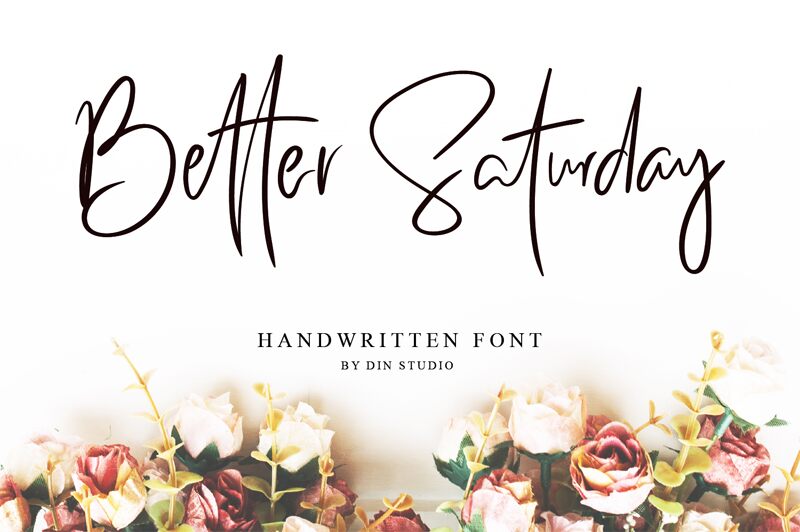
Introducing Better Saturday for your better work. With a classy and natural handwritten style, it brings a classy and chic typeface. Better Saturday is best used for weddings, branding, logotype, and quotes.
Beautiful Ligatures
Multilingual Support
Numerals and Punctuation